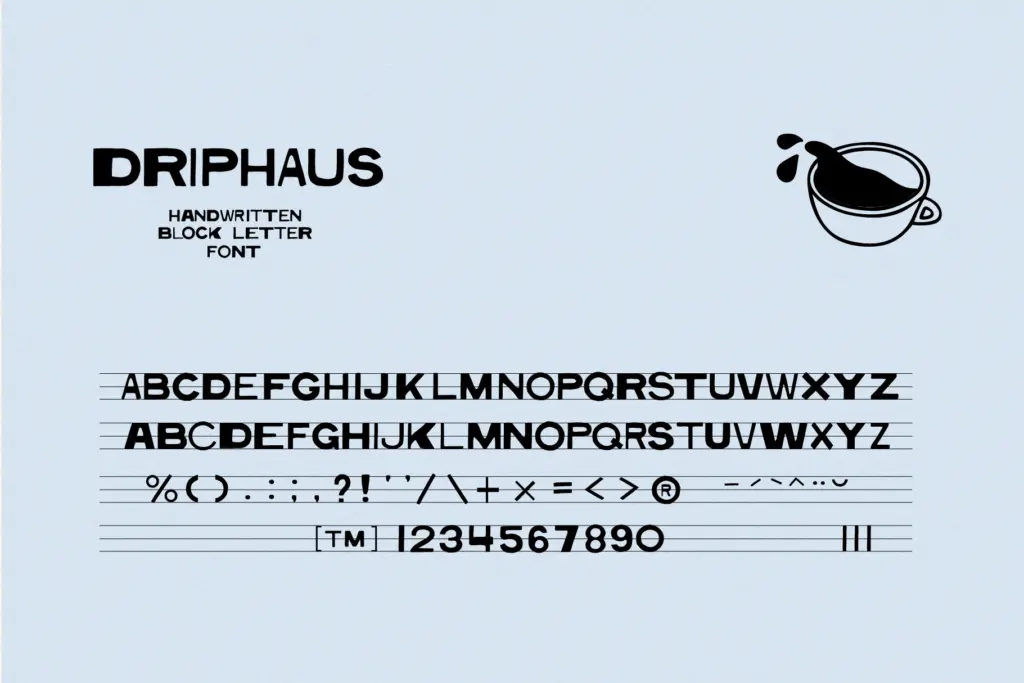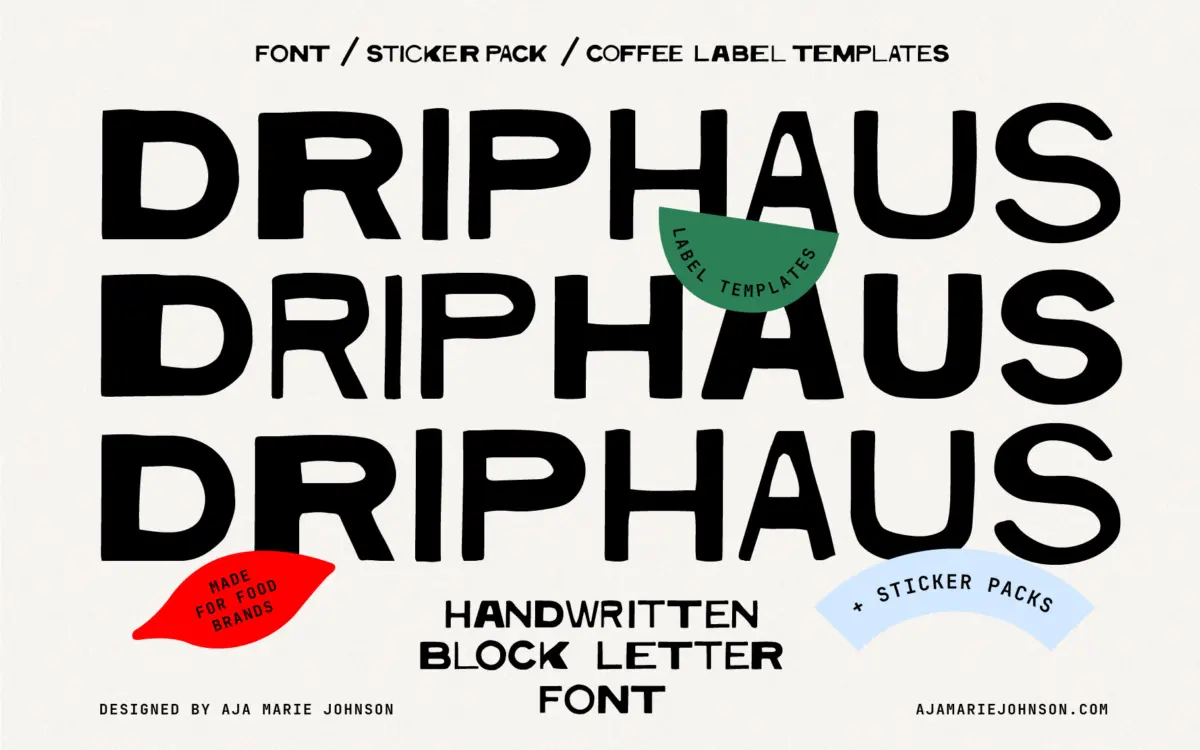
DRIPHAUS is an all-caps display face built around thick, blocky strokes with the kind of irregularity you get from a brush loaded with too much paint. Corners aren’t quite square, curves wobble slightly off their arc, and stroke weight shifts a little from letter to letter. That’s the point: it reads like something stencilled or hand-painted onto a chalkboard or a burlap sack, not something drawn in a vector program and smoothed into submission.
The letterforms are chunky and confident rather than delicate. There’s no attempt at elegance here — this is a shout, not a whisper. The irregularities are controlled enough that the face doesn’t look sloppy, but they’re present enough that you’ll notice this isn’t a geometric sans dressed up with a texture filter. It has a specific, single mood: rustic, warm, a bit rough. It doesn’t try to be anything else, which is its strength and its ceiling.
As an all-caps display font, DRIPHAUS is doing one job well rather than several jobs adequately — there’s no lowercase to fall back on for body copy or secondary messaging. The kit pairs it with JetBrains Mono as a secondary font for labels, which is a sensible move: the mono face handles the fine print, ingredient lists, and small type that DRIPHAUS was never built to carry.
Beyond the letterforms themselves, this is packaged as a kit rather than a bare font file. It comes with sticker pack artwork and a set of pre-built logo templates, editable in Illustrator via AI and EPS files. That’s worth noting because it changes what you’re actually buying: not just a typeface, but a starting point for label and sticker layouts that already have DRIPHAUS built into them. If you’re comfortable in Illustrator, the templates give you a shortcut past blank-page paralysis. If you’re not, the AI/EPS-only format is a real barrier — there’s no mention of a desktop font file you could drop into other software, which limits this to Illustrator-based workflows.
This is squarely a food-and-beverage branding font, and coffee packaging in particular is where it’ll feel most at home — bag stamps, cold brew labels, chalkboard-style menu boards, sticker packs for a roastery or café. The hand-painted irregularity does real work in that context: it signals small-batch, artisanal, made-by-people rather than mass-produced.
It’ll extend reasonably well to adjacent categories — craft snack packaging, brewery signage, farmers-market branding, anything leaning into a rustic or retro-adjacent identity. It’s less useful outside that lane. Don’t reach for it for anything that needs a lowercase, anything corporate or restrained, or long-form text of any kind. It’s a headline and logotype tool, not a typeface family, and it works best when the rest of the design — kraft paper, stamped textures, muted colour — is already speaking the same visual language.
- The hand-painted irregularity feels genuine rather than filtered on
- Bundled logo templates and stickers give a real head start on label layouts
- Pairing with JetBrains Mono covers the small-print gap sensibly
- No lowercase means it can't carry any body copy or secondary text on its own
DRIPHAUS is a solid, single-purpose display font that does exactly what its name promises: rough, confident, hand-painted-looking caps for coffee and food branding. The bundled label templates and stickers add practical value if you work in Illustrator, but the lack of a lowercase and the Illustrator-only file formats narrow its use considerably.